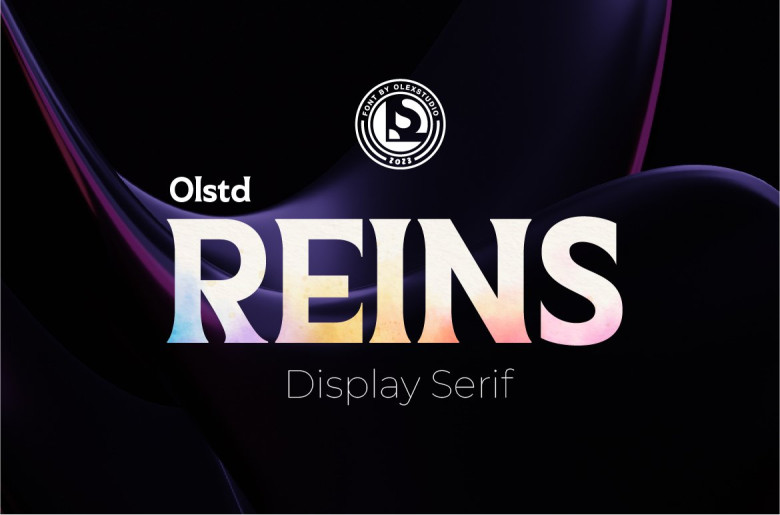
Reins Olstd Font
Reins Olstd Font – Display Serif Font will make an eye-catching statement in any design you create, from invitations, books, posters, logos and branding materials to invitations, designs books, posters logos or anything else you need!
REINS Olstd font Display Serif features regular characters, lowercase numbers, uppercase punctuation marks ligatures and international glyphs.
REINS Olstd Display Serif Font